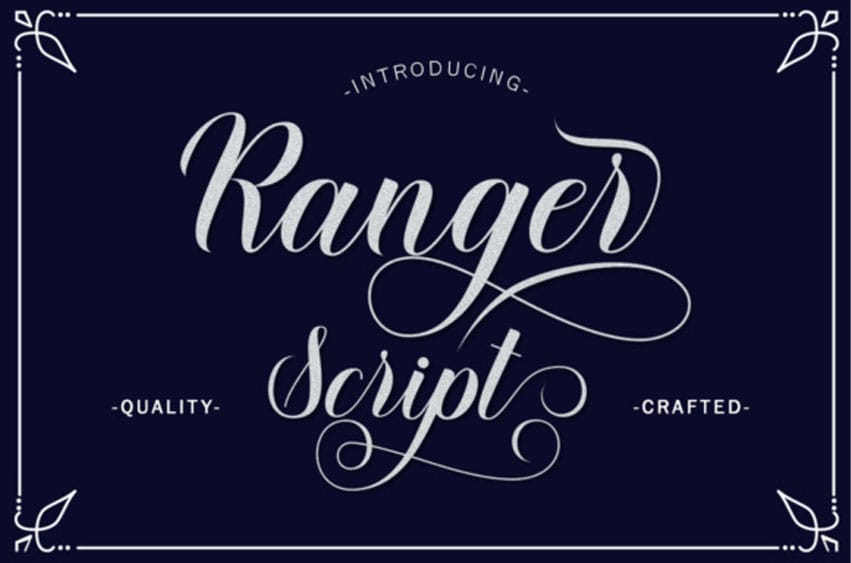
Ranger Script Font is a modern calligraphy script.
It has elegant letters, which are perfect for every design that needs a feminine yet trendy typeface.
Ranger Script Font is a modern calligraphy script.
It has elegant letters, which are perfect for every design that needs a feminine yet trendy typeface.